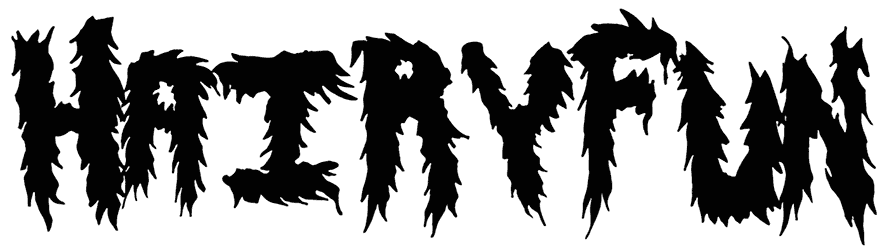
HairyFun Font
HairyFun is an eye-grabbing horror font that carries a vibe of fear, dread, momentum, or jauntiness. Aside from not supporting the lowercase letters, this masterpiece can be your game-changer in the realm of designing high-end editorial projects like movie posters, video game brochures, stickers, flyers, or product packaging.
If you want to impress the audience even at the first glance, then you must take advantage of this monster font.